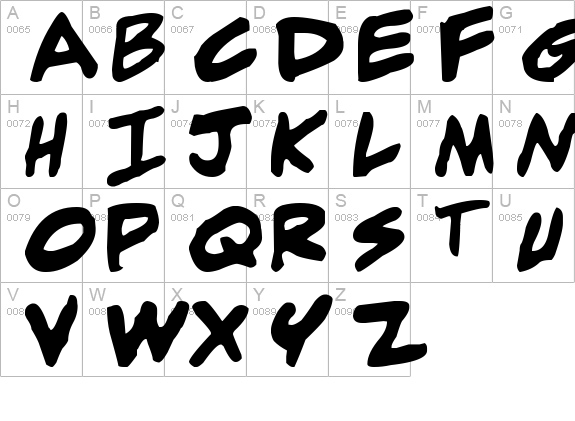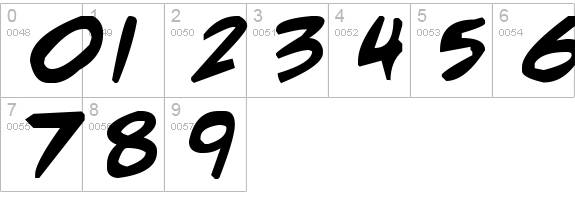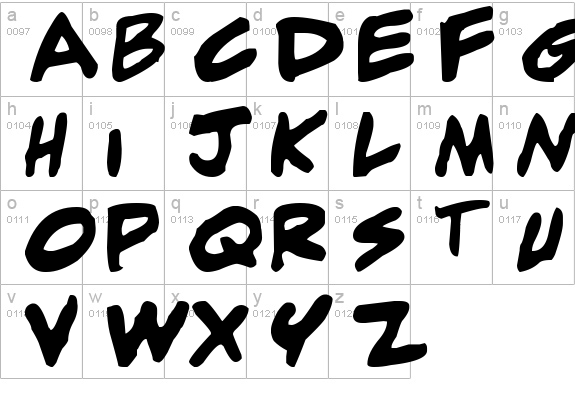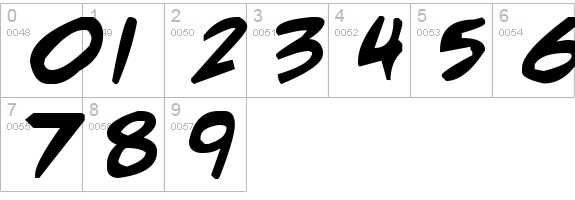
adam warren 0.2 Bold Italic is a strong, high-contrast, italic variant in the adam typeface family \xE2\x80\x94 well suited to headlines, attention-grabbing titles, and strong calls-to-action.
Introducing Adam Warren 0.2 Bold Italic font, a stunning typeface that exudes modern elegance and sophistication. With its bold yet graceful design, this font is perfect for making a statement in your projects. The sleek curves and sharp angles of Adam Warren 0.2 Bold Italic add a touch of contemporary flair to any design. Not only does Adam Warren 0.2 Bold Italic look amazing, but it also offers exceptional readability, making it an ideal choice for headlines, logos, branding, and more. This versatile font is sure to elevate your designs and leave a lasting impression on your audience. And the best part? Adam Warren 0.2 Bold Italic is **freely available to download at FontsMarket.com**. Don't miss out on the opportunity to enhance your projects with this stylish and impactful font. Download Adam Warren 0.2 Bold Italic today and take your designs to the next level.